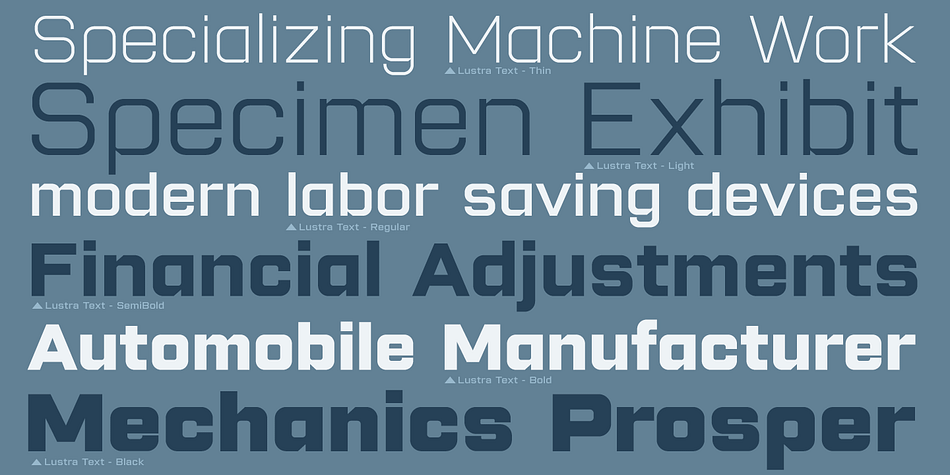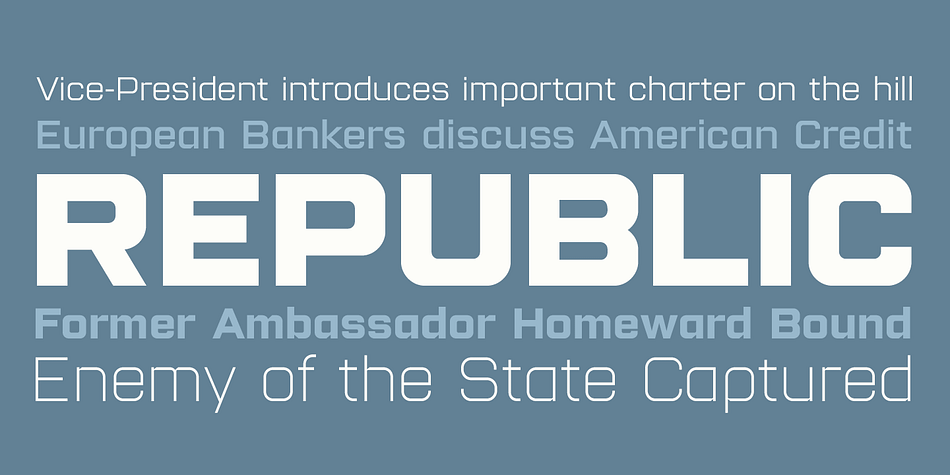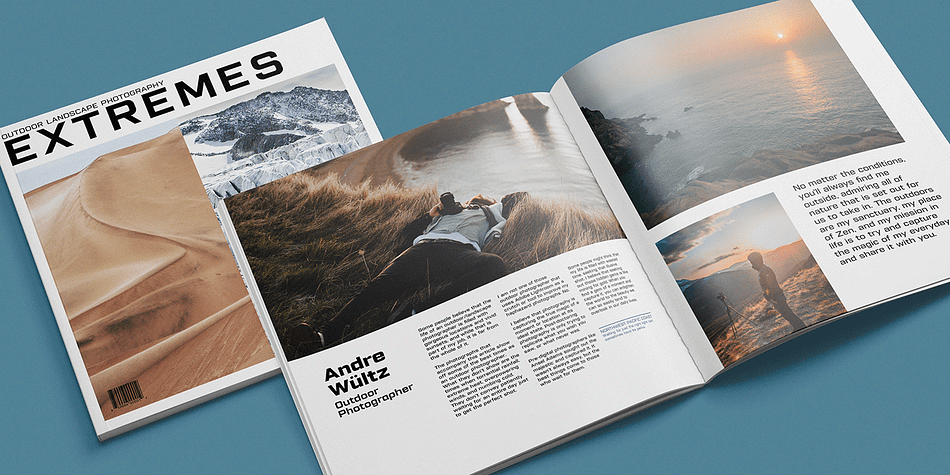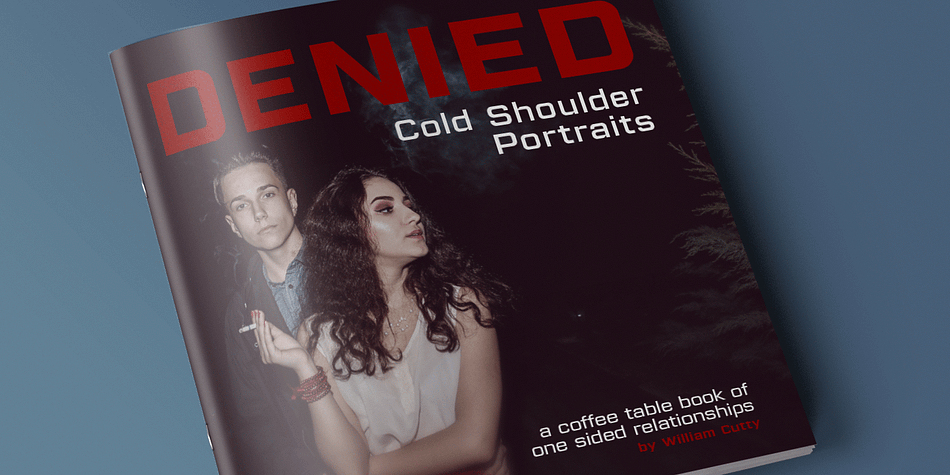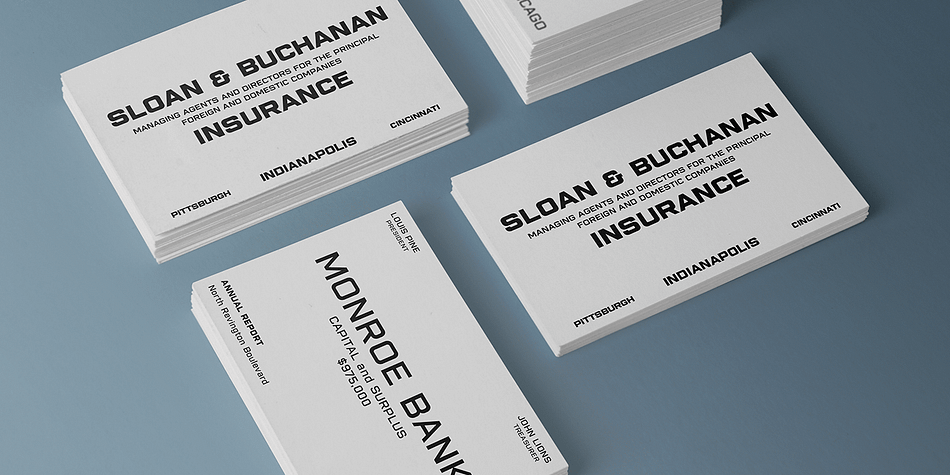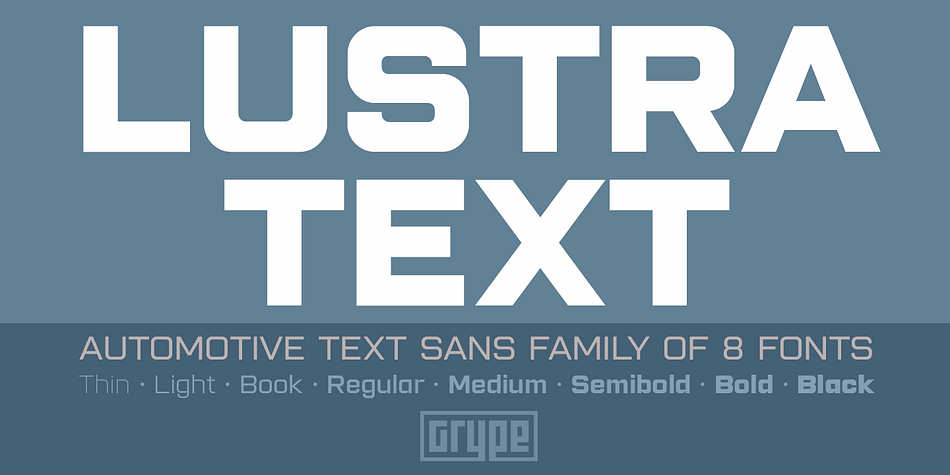
Designed by Brian J. Bonislawsky and Jim Lyles, Lustra Text is a sans serif font family. This typeface has eight styles and was published by Grype Type.
The Lustra Text family is the next evolution of our Lustra Family, which finds its origin of inspiration in the HYUNDAI automotive company logo, and from there expands to an 8 font family of weights.
Lustra Text still nods its head to the techno display styling of the inspiration logotype but evolves its brand inspired origin from a display to a text font family that pulls on modern and historical styles like Eurostyle and Bank Gothic. This text family inherits a sturdy yet approachable geometric style with its uniform stroke forms and curves and includes a lowercase with a Stylistic Alternate for the lowercase “a”, numerals set, and a comprehensive range of weights. This is a straightforward, powerful, and uncompromising collection of typefaces that lend a solid foundation and a broad range of expression for designers.